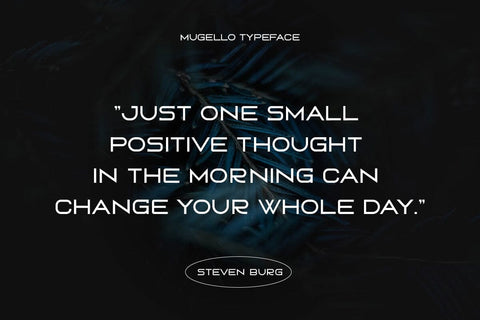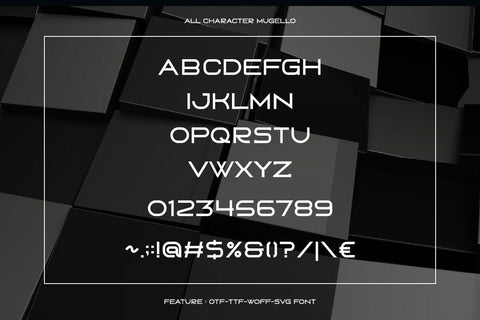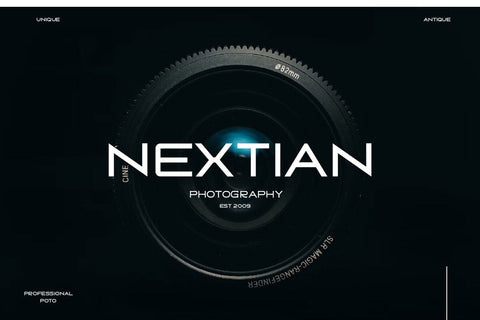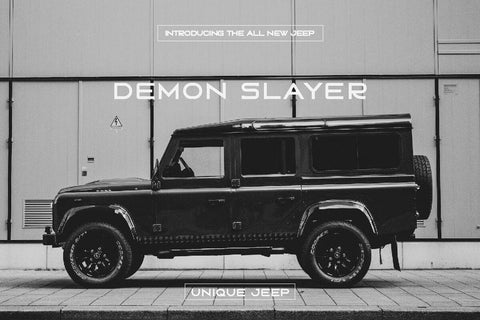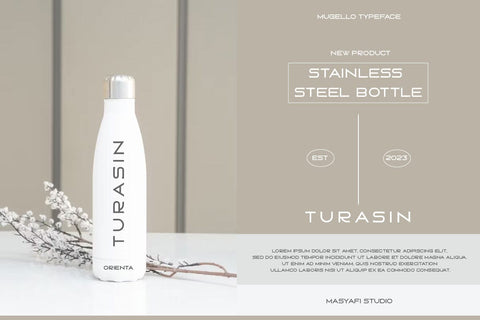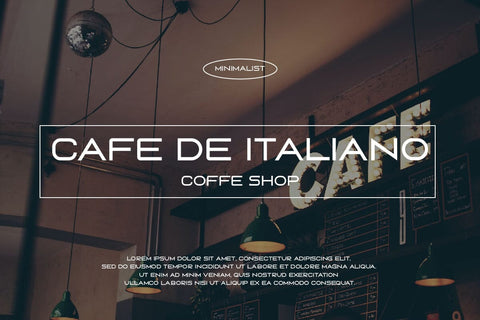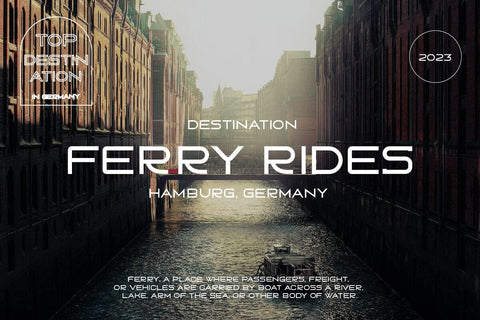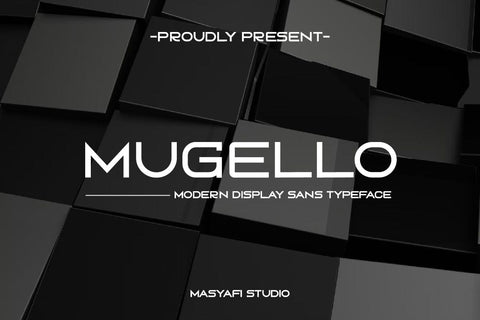
Mugello - Modern Display Sans Typeface
Hi, Introducing Mugello - Modern Display Sans Typeface
A Modern Display Sans Typeface font with a manly, vintage, gentle style. This font is cool for headlines, overlays, tumblers, quotes, etc